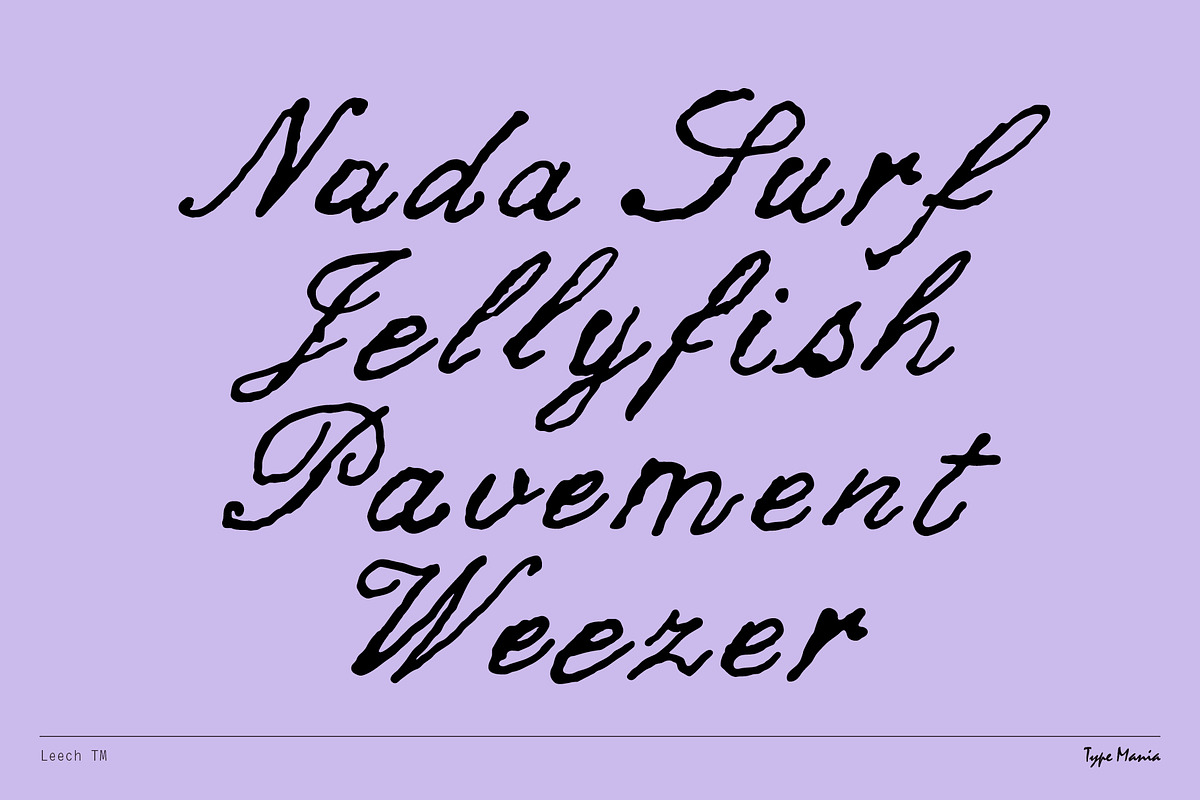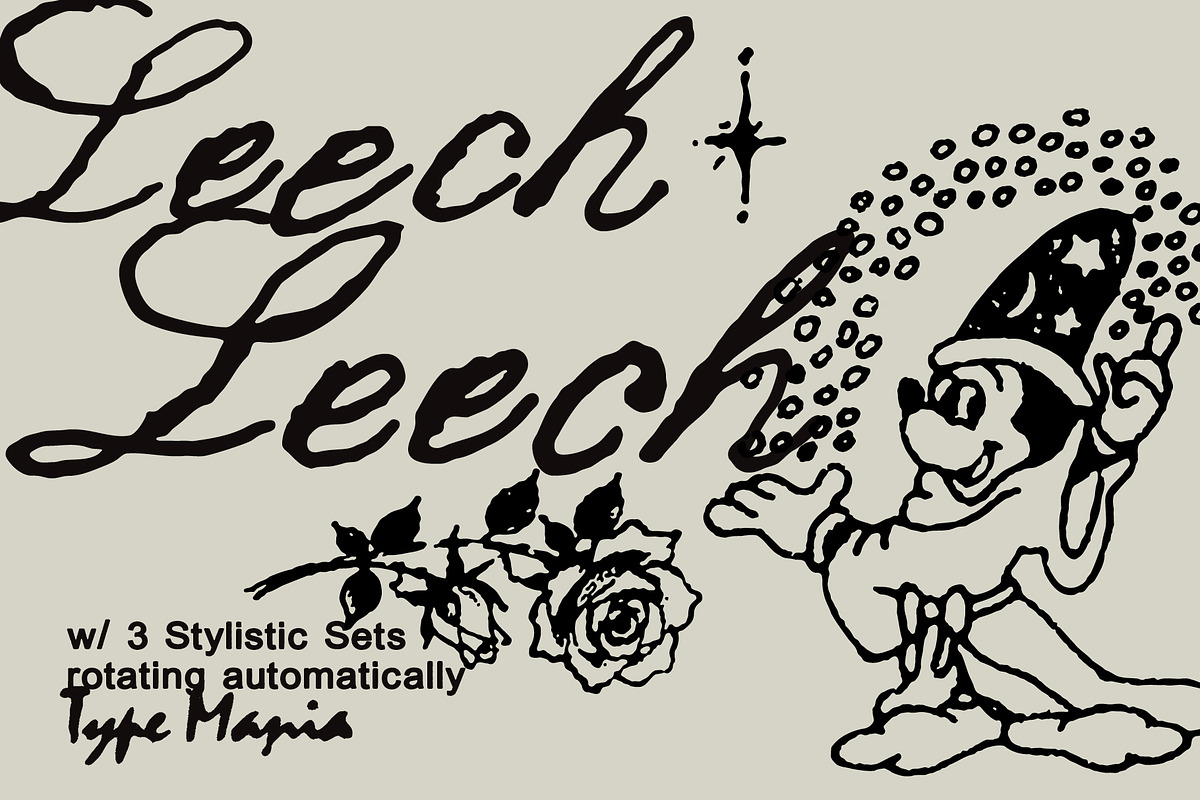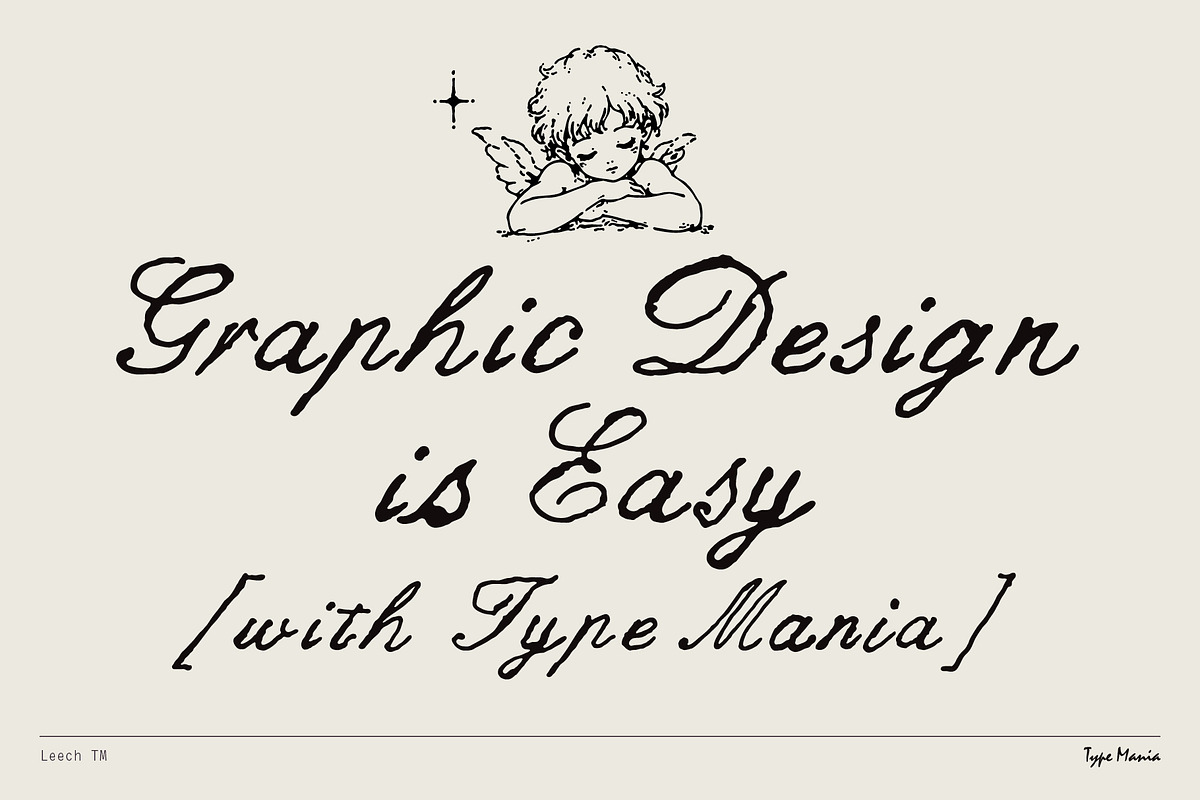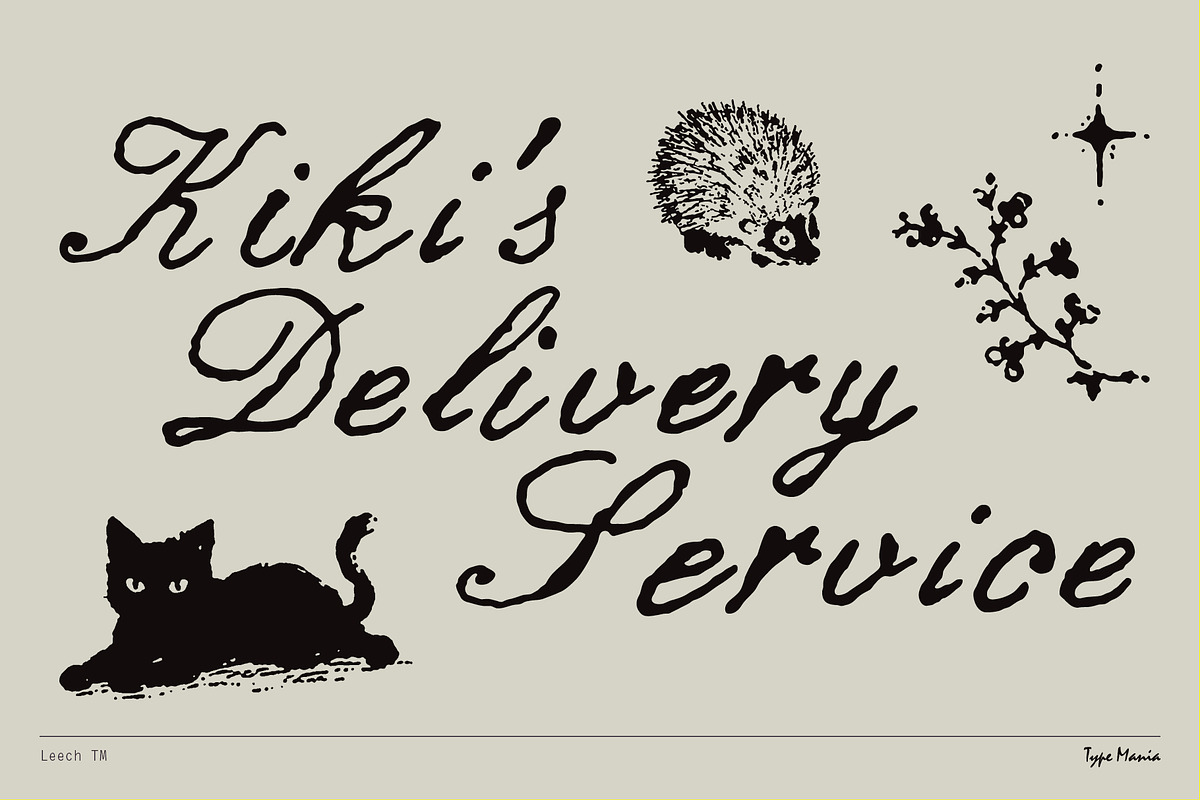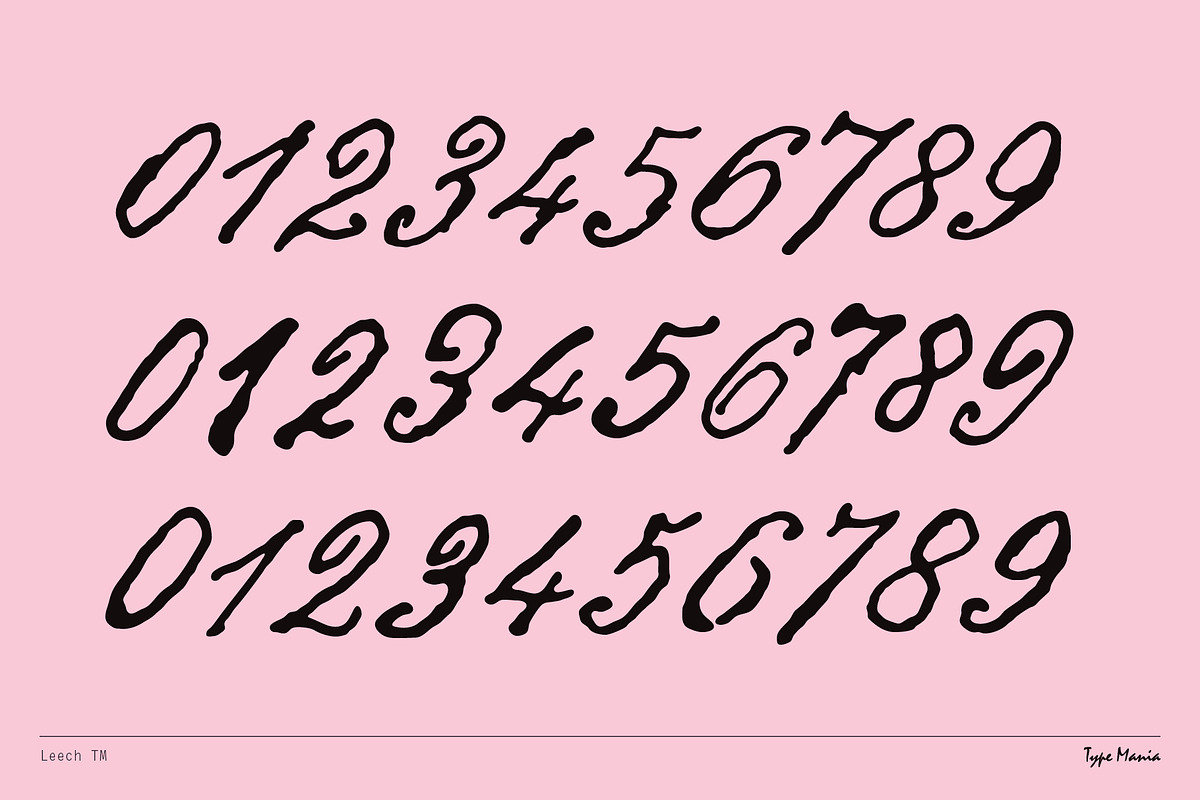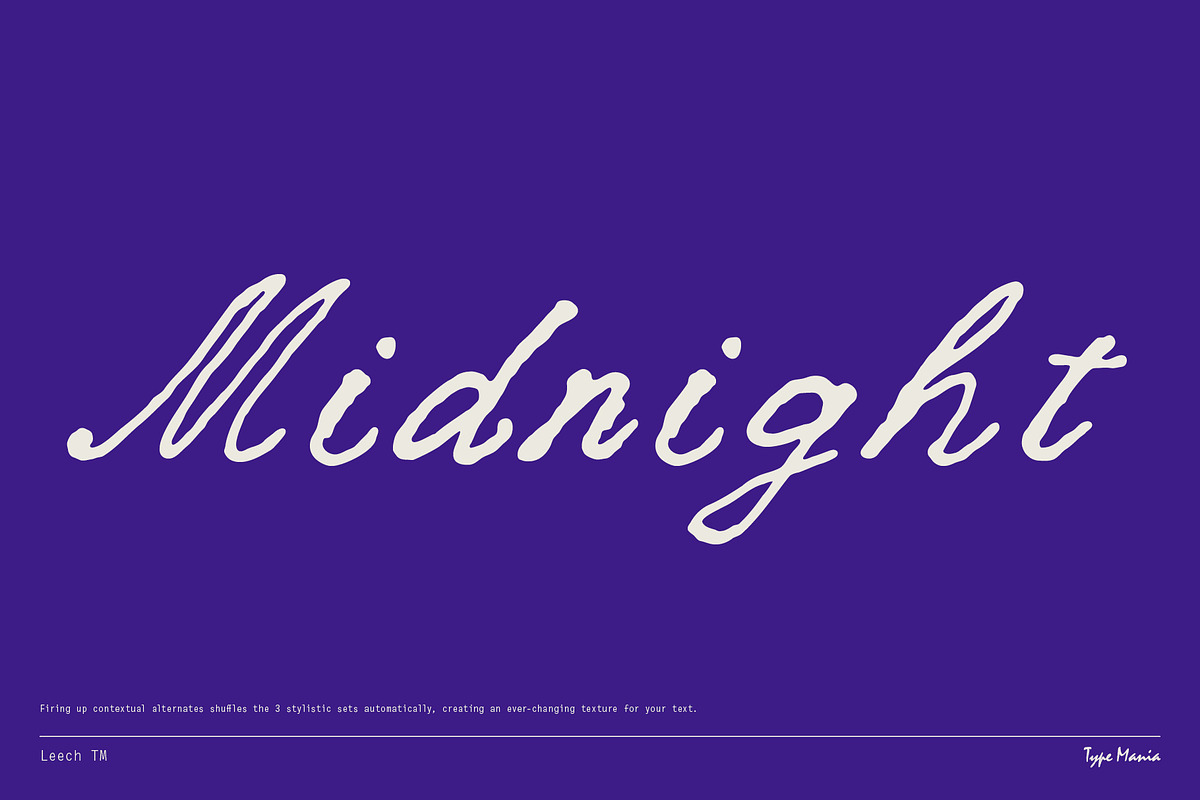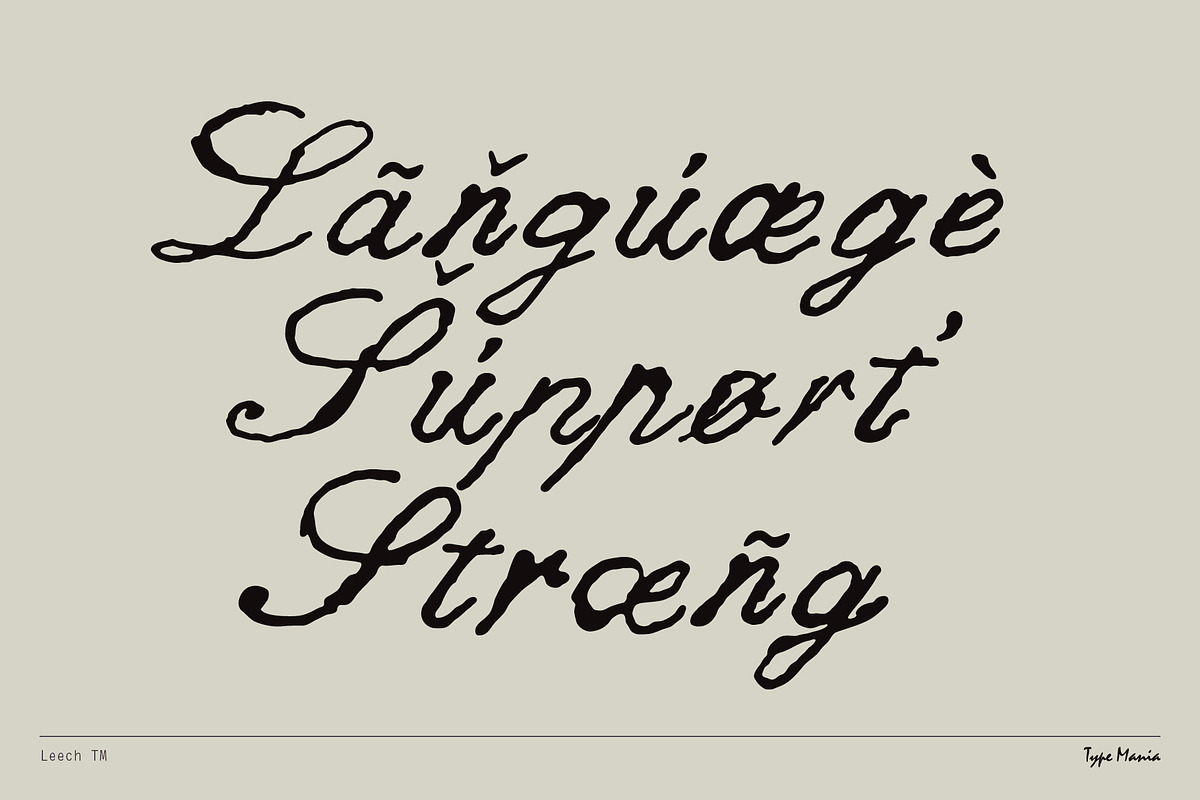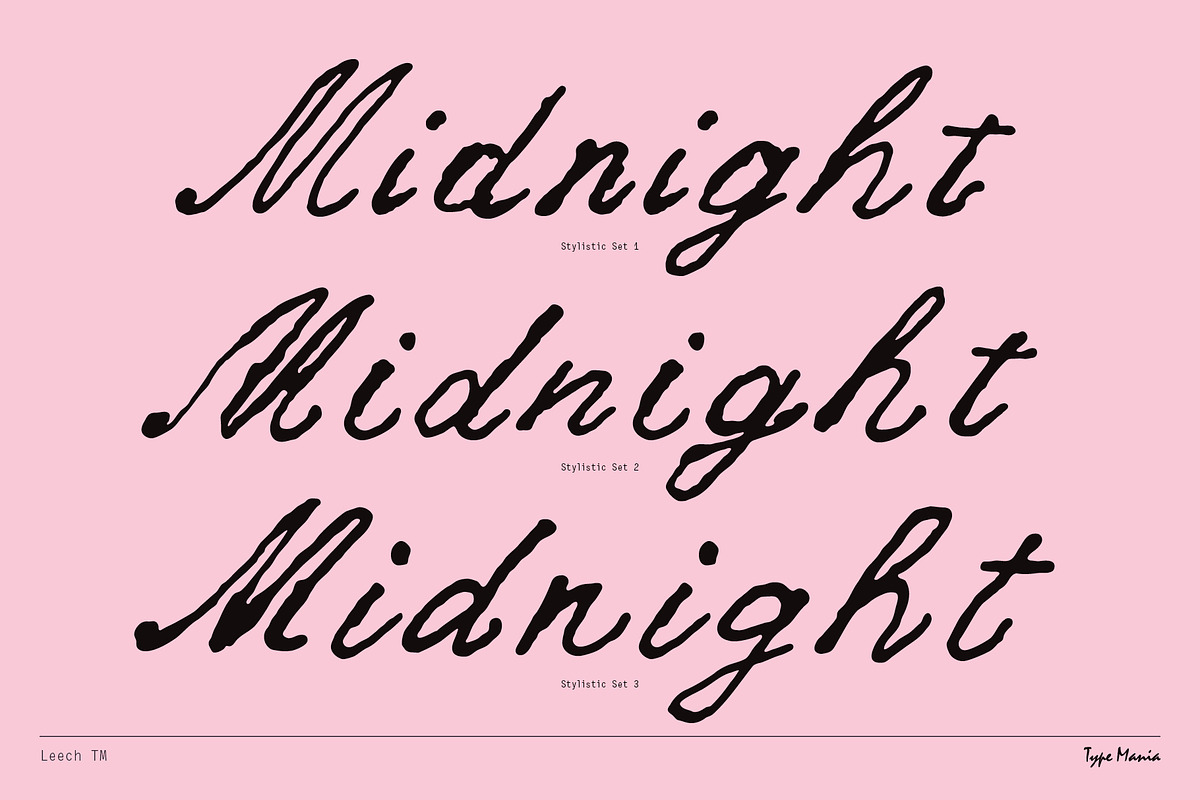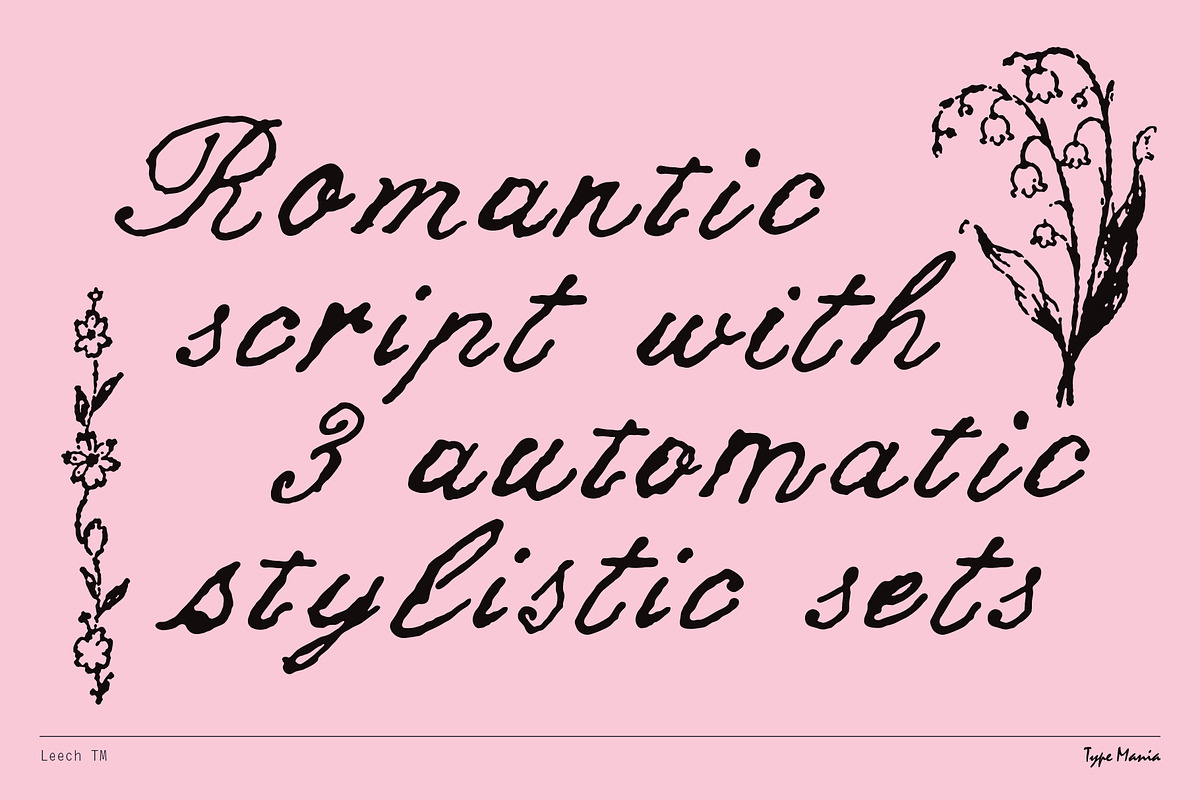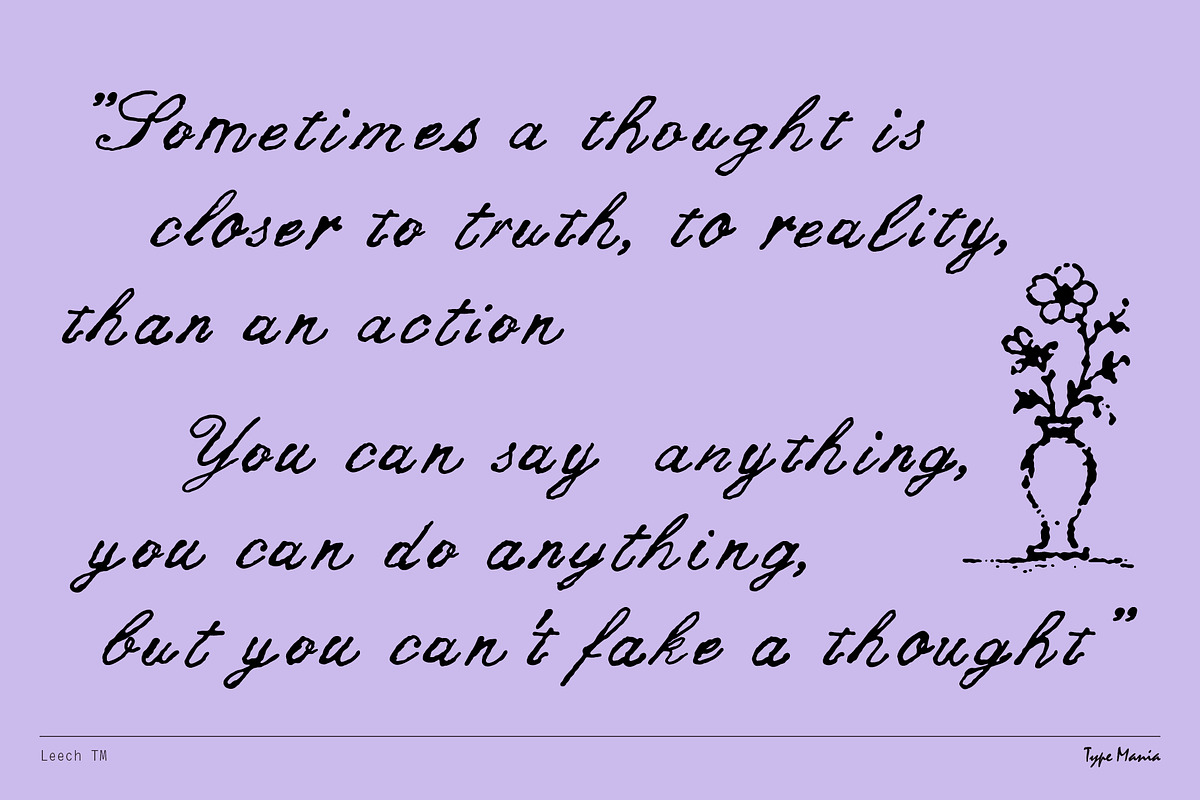
Leech TM – Romantic Script
Leech TM is a romantic script with a blessed-up messed-up elegance. Three automatically rotating stylistic sets keep repeated letters from repeating themselves.
OpenType features
3 stylistic sets
The font is programmed to automatically shift between the stylistic sets